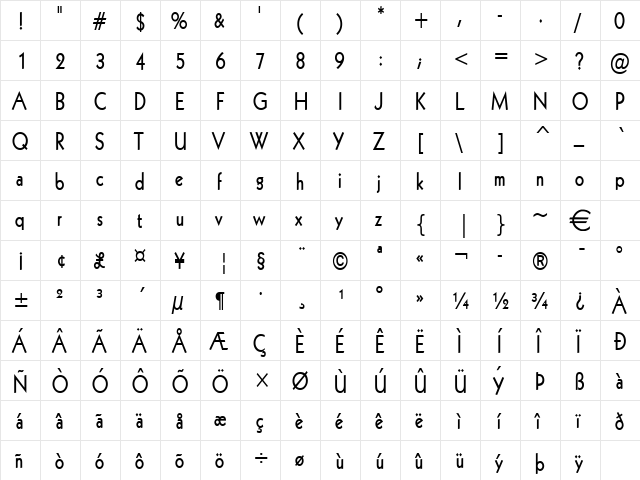
Geo112Condensed Bold
Design Context for Geo112Condensed Typeface
Geo112Condensed offers clean, dependable letterforms without strong stylistic allegiance, making it a practical choice for designers who need flexibility. The heavy weight commands attention and anchors typographic hierarchies. The condensed width makes it efficient for tight spaces without sacrificing legibility.